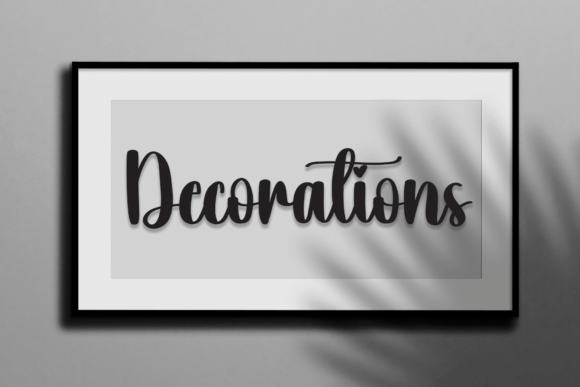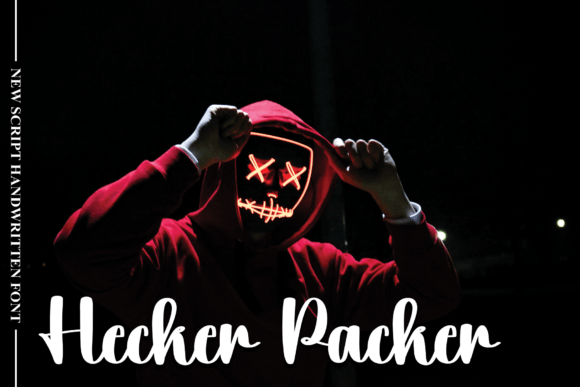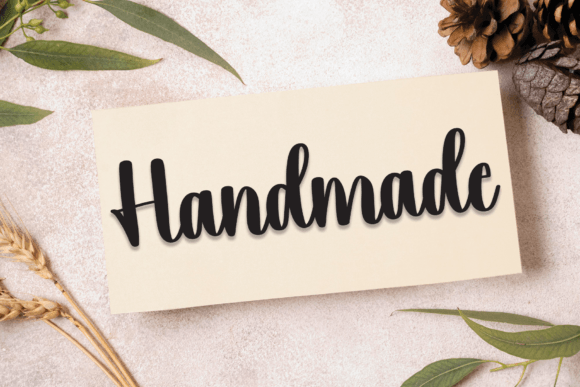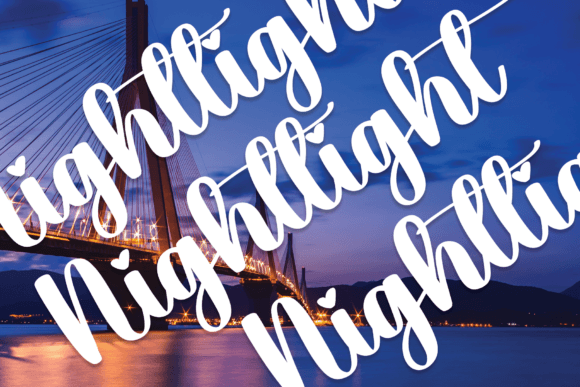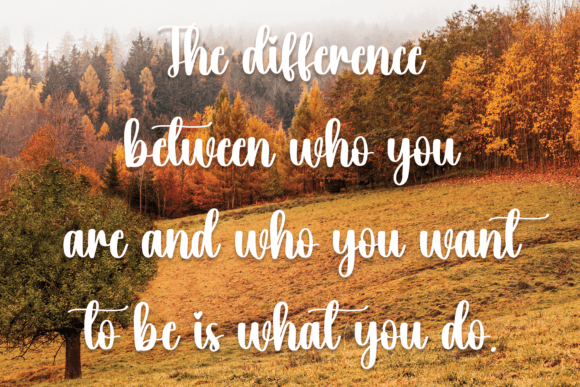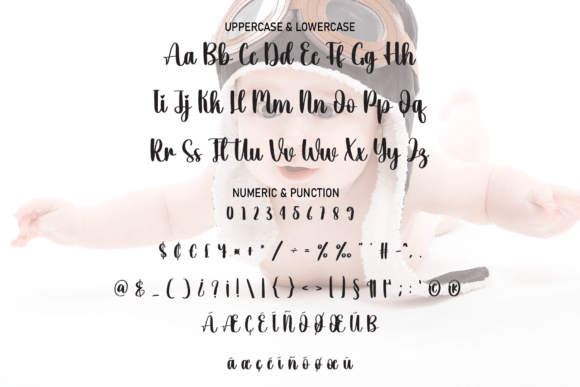
Introducing Delighted Font: The Cute and Adorable Handwritten Script Font
Are you looking for a font that can add a touch of joy and romance to your design projects? Look no further than Delighted Font, a beautiful handwritten script font that is sure to delight. With its gentle and adorable aesthetic, Delighted Font is perfect for a variety of design ideas, from wedding invitations and baby shower announcements to branding and packaging design.
What Makes Delighted Font So Special?
Delighted Font is a unique and charming handwritten script font that is designed to bring a smile to your face. Its soft and flowing lines, combined with its playful and cursive style, make it the perfect choice for designers and crafters who want to add a personal touch to their work. Whether you’re creating a romantic wedding invitation or a fun and playful craft project, Delighted Font is sure to make your design stand out.
Features of Delighted Font
- Cute and Adorable Aesthetic: Delighted Font has a sweet and charming appearance that is sure to capture the hearts of your audience.
- Handwritten Script Style: With its flowing lines and cursive style, Delighted Font has a personal and human touch that is perfect for a variety of design projects.
- Versatile and Flexible: Delighted Font can be used for a wide range of design ideas, from wedding invitations and baby shower announcements to branding and packaging design.
- Easy to Read and Understand: Despite its playful and cursive style, Delighted Font is easy to read and understand, making it perfect for body text and headlines.
Uses of Delighted Font
Delighted Font is a versatile font that can be used for a wide range of design projects, including:
- Wedding Invitations and Stationery: Add a touch of romance and elegance to your wedding invitations and stationery with Delighted Font.
- Baby Shower Announcements and Decor: Create adorable and playful baby shower announcements and decor with Delighted Font.
- Branding and Packaging Design: Use Delighted Font to create unique and eye-catching branding and packaging design for your products.
- Crafting and Scrapbooking: Add a personal touch to your crafting and scrapbooking projects with Delighted Font.
Why Choose Delighted Font?
With so many fonts available, why choose Delighted Font? Here are just a few reasons:
- Unique and Charming Aesthetic: Delighted Font has a one-of-a-kind aesthetic that is sure to make your design stand out.
- High-Quality Design: Delighted Font is designed with high-quality and precision, ensuring that it looks great in any design project.
- Easily Customizable: Delighted Font can be easily customized to fit your design needs, including adjusting font size, color, and style.
In conclusion, Delighted Font is a beautiful and charming handwritten script font that is perfect for designers and crafters who want to add a touch of joy and romance to their design projects. With its unique and adorable aesthetic, versatile and flexible design, and easy-to-read style, Delighted Font is sure to delight. Whether you’re creating a romantic wedding invitation or a fun and playful craft project, Delighted Font is the perfect choice.